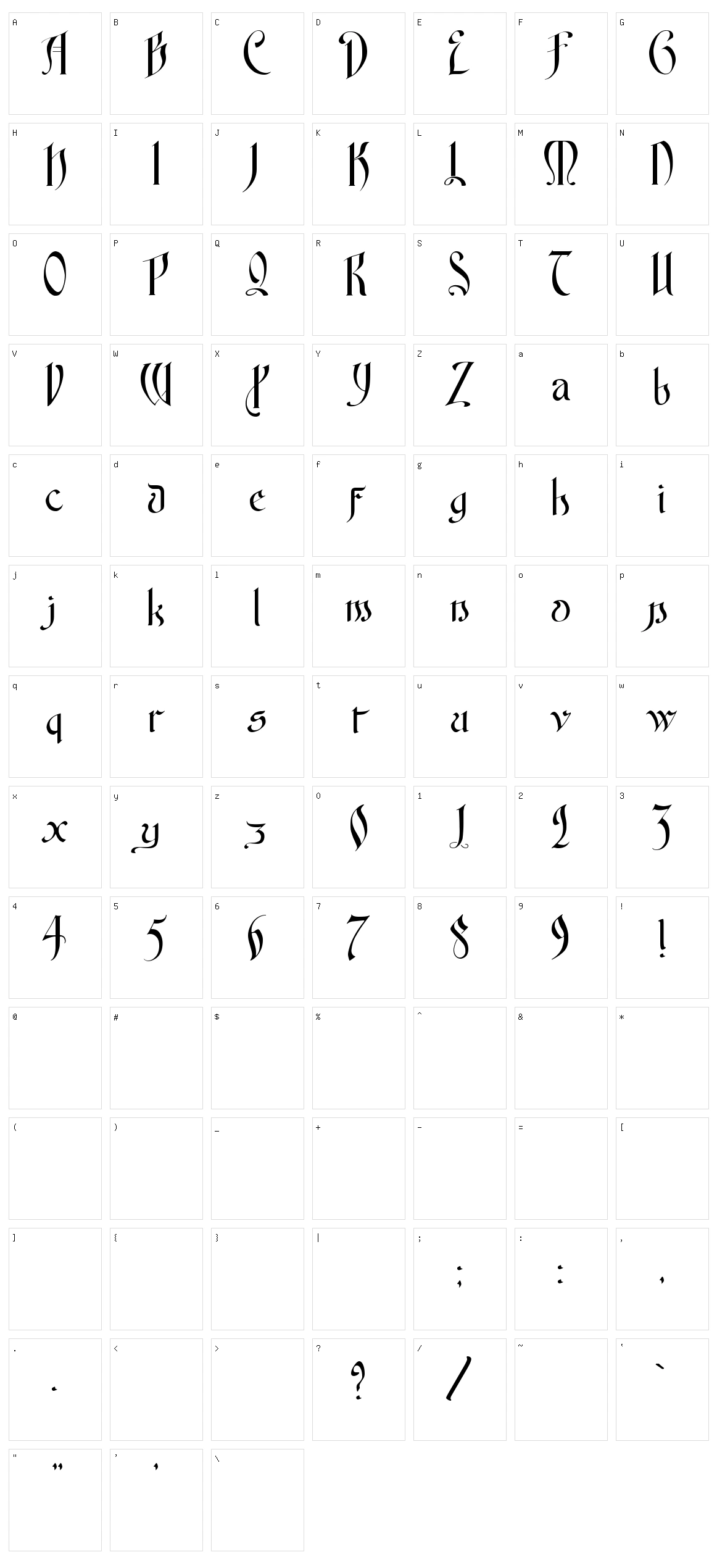
Fontenay Fancy
A Lewis F. Day's Modern Fancies revival v1.01 improved kerning. Only Western Latin characters and accented characters, numerals and basic interpunction. Smallest read size 18 pt.